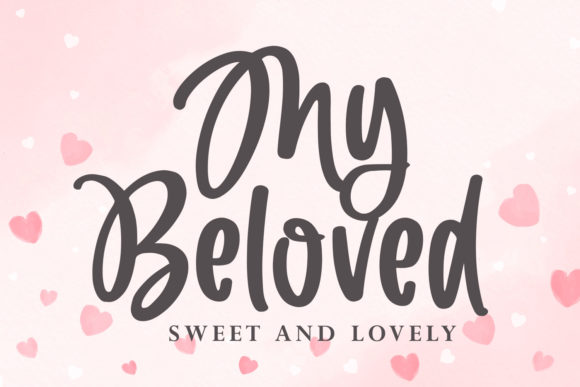
Dive into the world of elegance and charm with My Beloved Font, an exquisite script typeface that dances across your screens with a graceful touch. This sensational font is the epitome of sophistication, leaving an indelible mark on any creative project it graces.
My Beloved Font is a symphony of swirling lines and enchanting curves that ignite the senses. Each character is a work of art, a testament to the dedication and artistry of its creator, Subectype. This skilled artisan has breathed life into every letter, resulting in a font that exudes personality and charm.
Whether you're a seasoned designer or a creative enthusiast, My Beloved Font is the perfect choice for projects where elegance and individuality are paramount. Its versatility shines through, whether you're crafting heartfelt wedding invitations, expressing gratitude with personalized thank-you cards, or adding a touch of whimsy to your greeting cards. This font elevates your designs, adding a touch of timeless beauty that leaves a lasting impression.
With My Beloved Font, you have the power to create logos that stand out from the crowd, business cards that exude professionalism, and any other design that requires a customized touch. Its unique charm adds a personal touch that captivates audiences and leaves them yearning for more.
My Beloved Font is not just a mere font; it's a gateway to a world of creativity and self-expression. Embrace the allure of handwritten artistry and let your imagination soar. With My Beloved Font as your creative companion, there are no limits to what you can achieve.
Experience the magic of My Beloved Font today and transform your creative visions into captivating realities. Immerse yourself in the world of elegance and sophistication, and let your designs blossom with the beauty of this exceptional font.